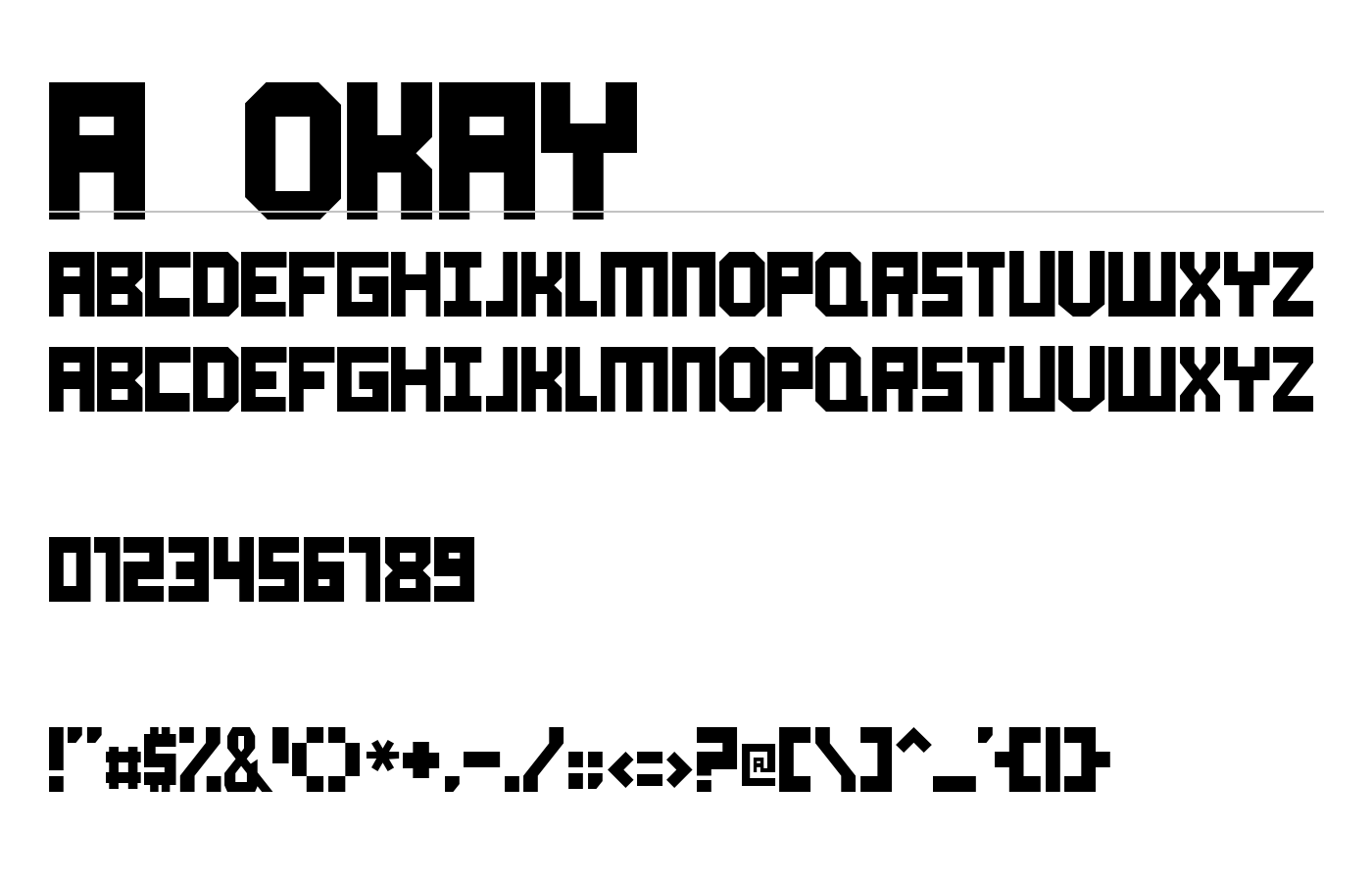
A Okay Font is a bold, geometric sans serif typeface characterized by its sharp, angular edges and strong, blocky letterforms. With its uniform weight and tight spacing, it delivers a modern, tech-inspired look that works well for headlines, logos, and branding where a sturdy, impactful presence is desired. This font is perfect for projects needing a futuristic or industrial vibe, adding a sense of robustness and clarity to your design.
A Okay Font
About A Okay Font
| Font family | A Okay Font |
| Designer | tm |